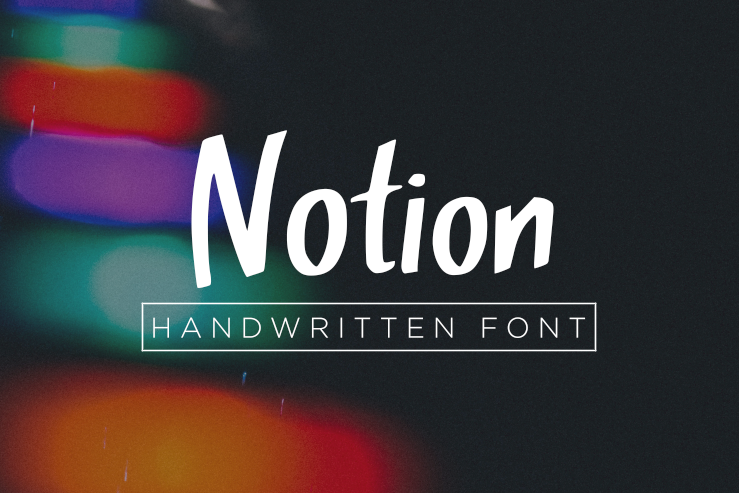
Notion Font
Notion: an impulse or desire, especially one of a whimsical kind.
What you get with this font is a clean, handwritten font! Easy to read, simple, with a little bit of whimsy. This font contains upper & lowercase characters, numerals and a large range of punctuation.